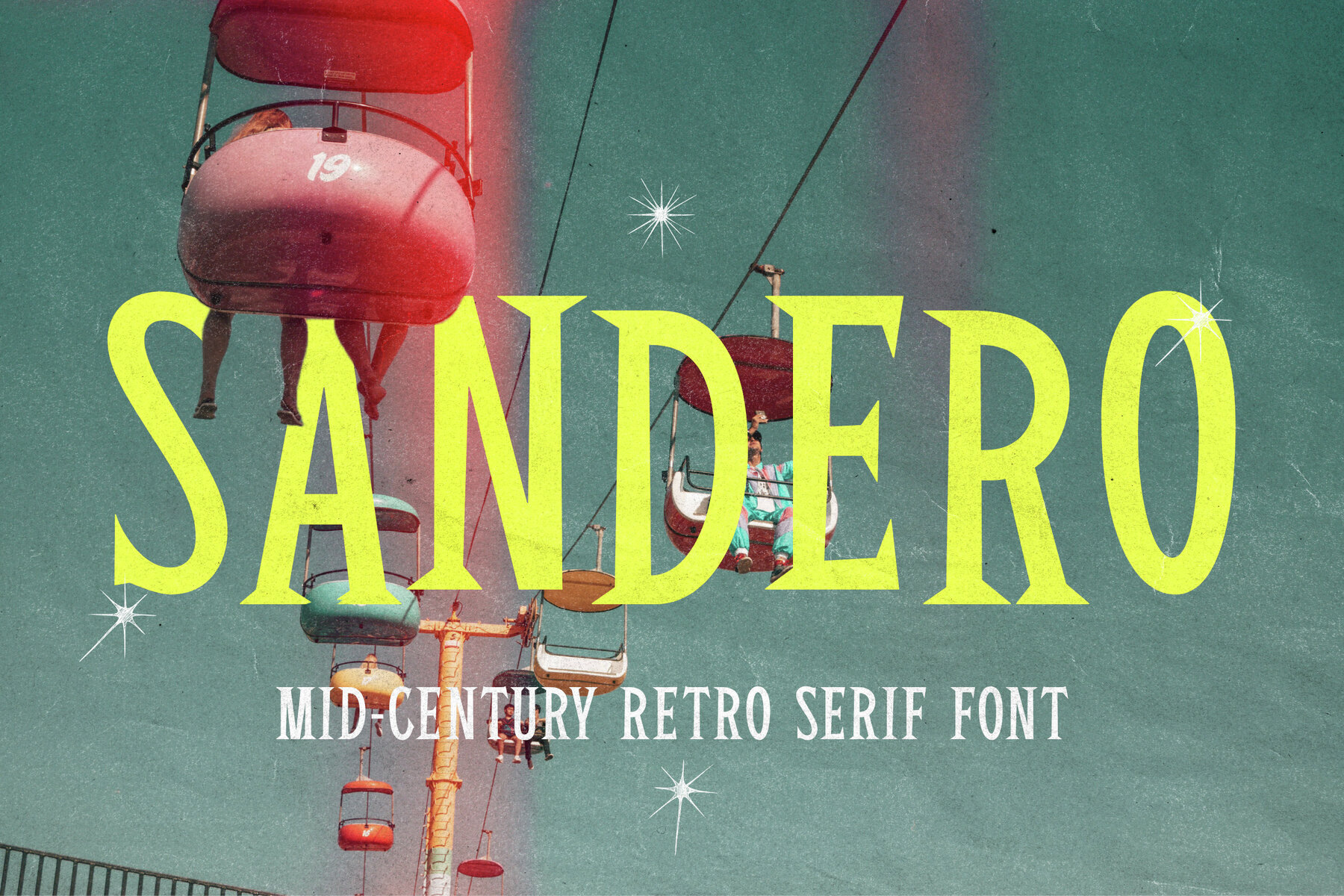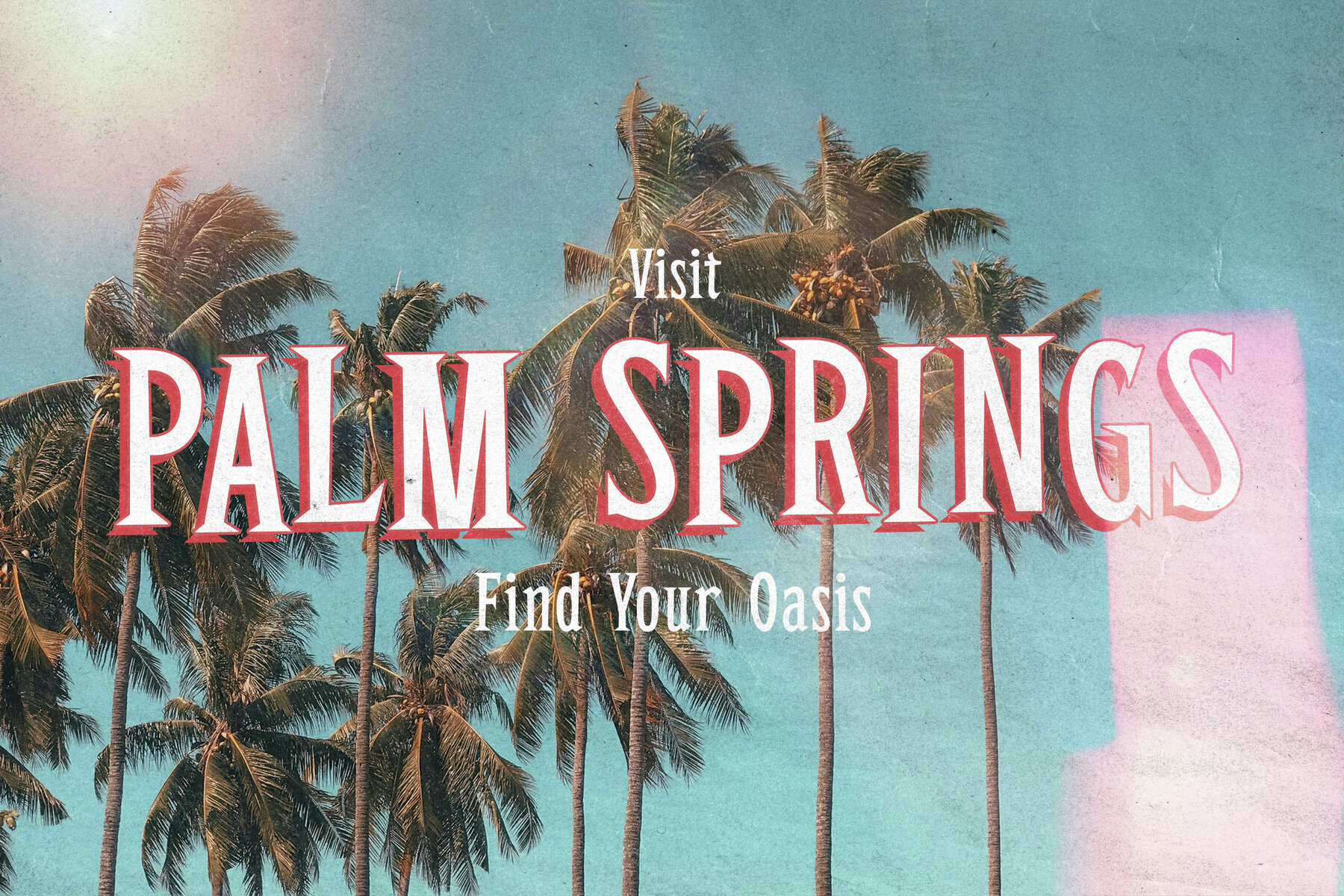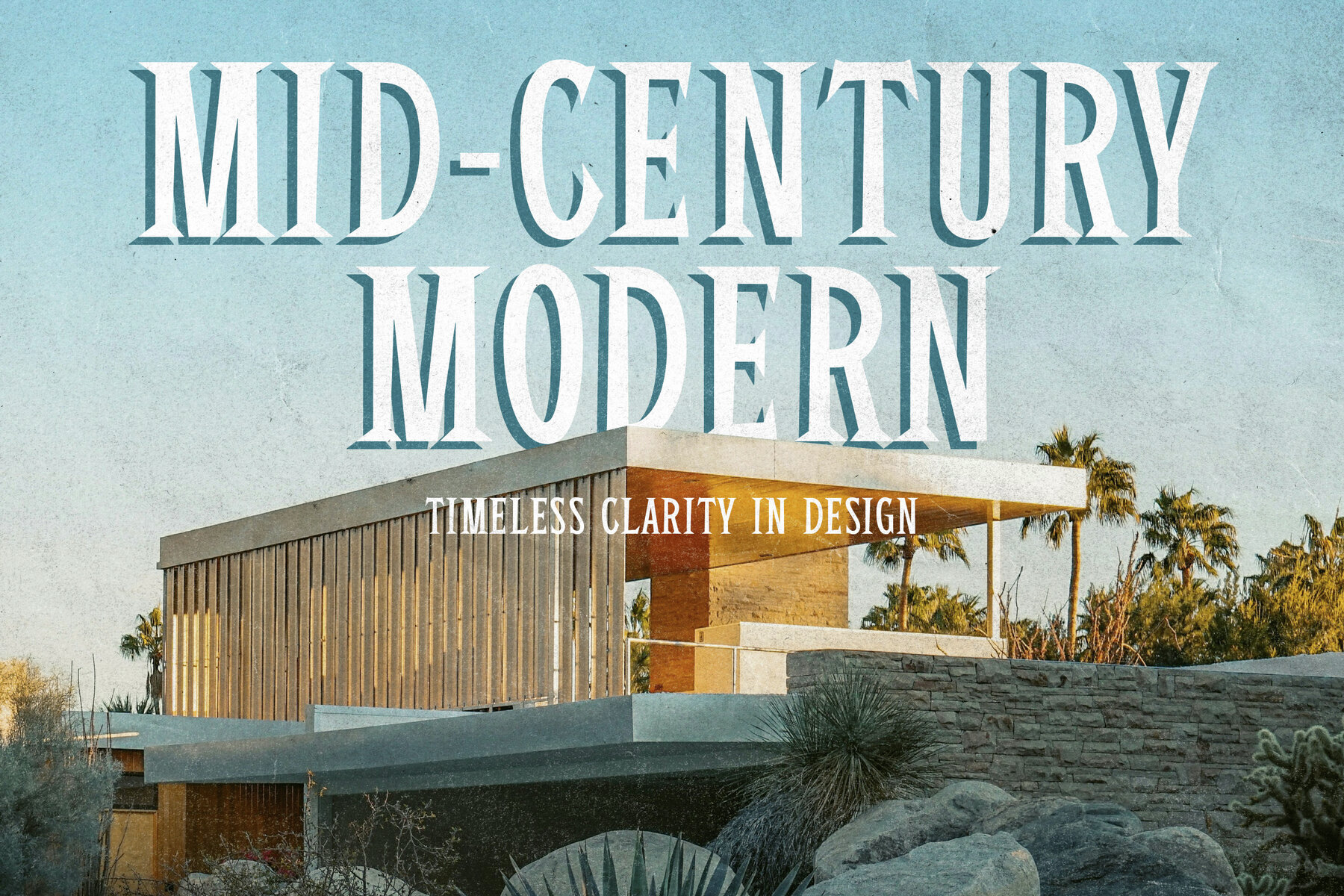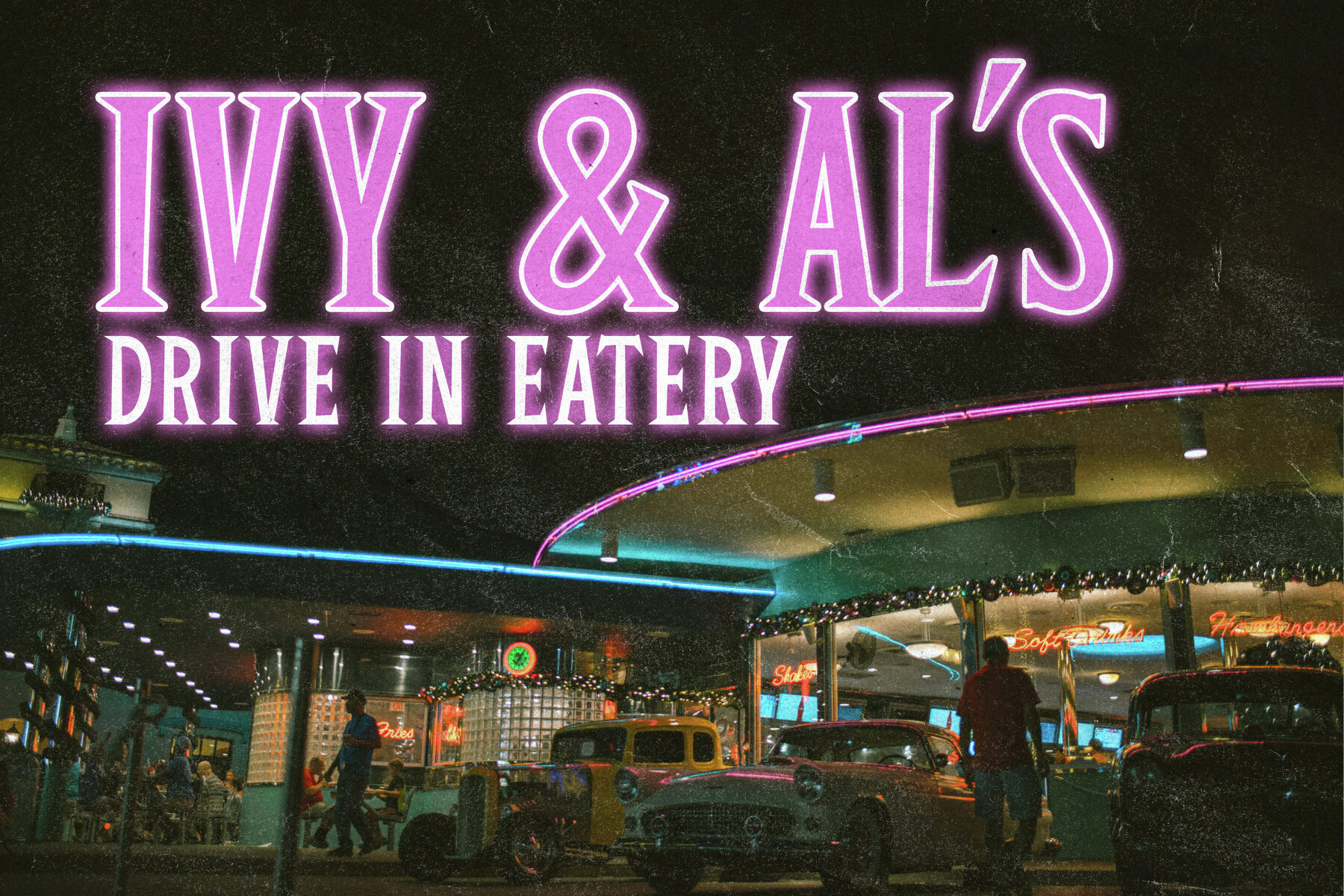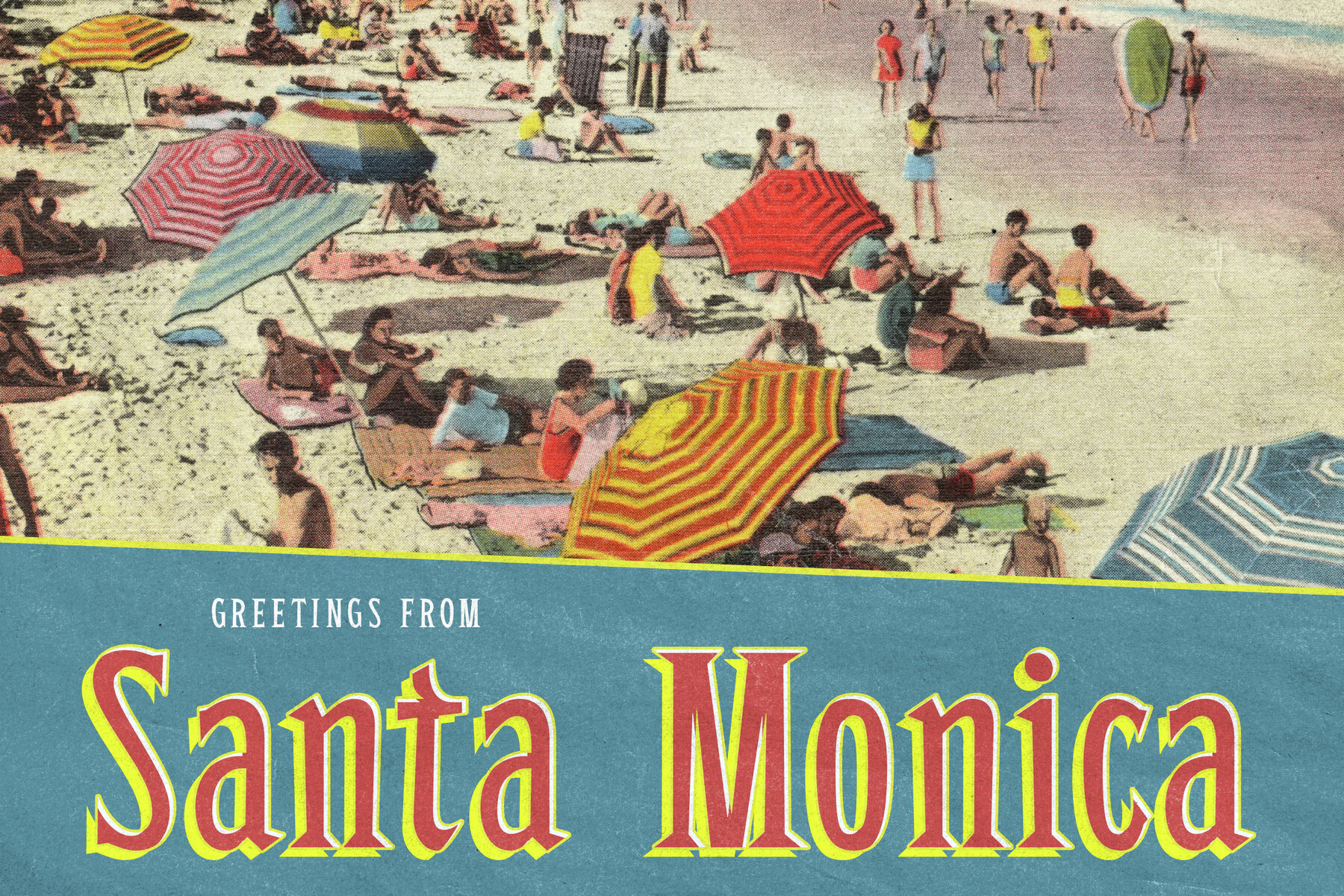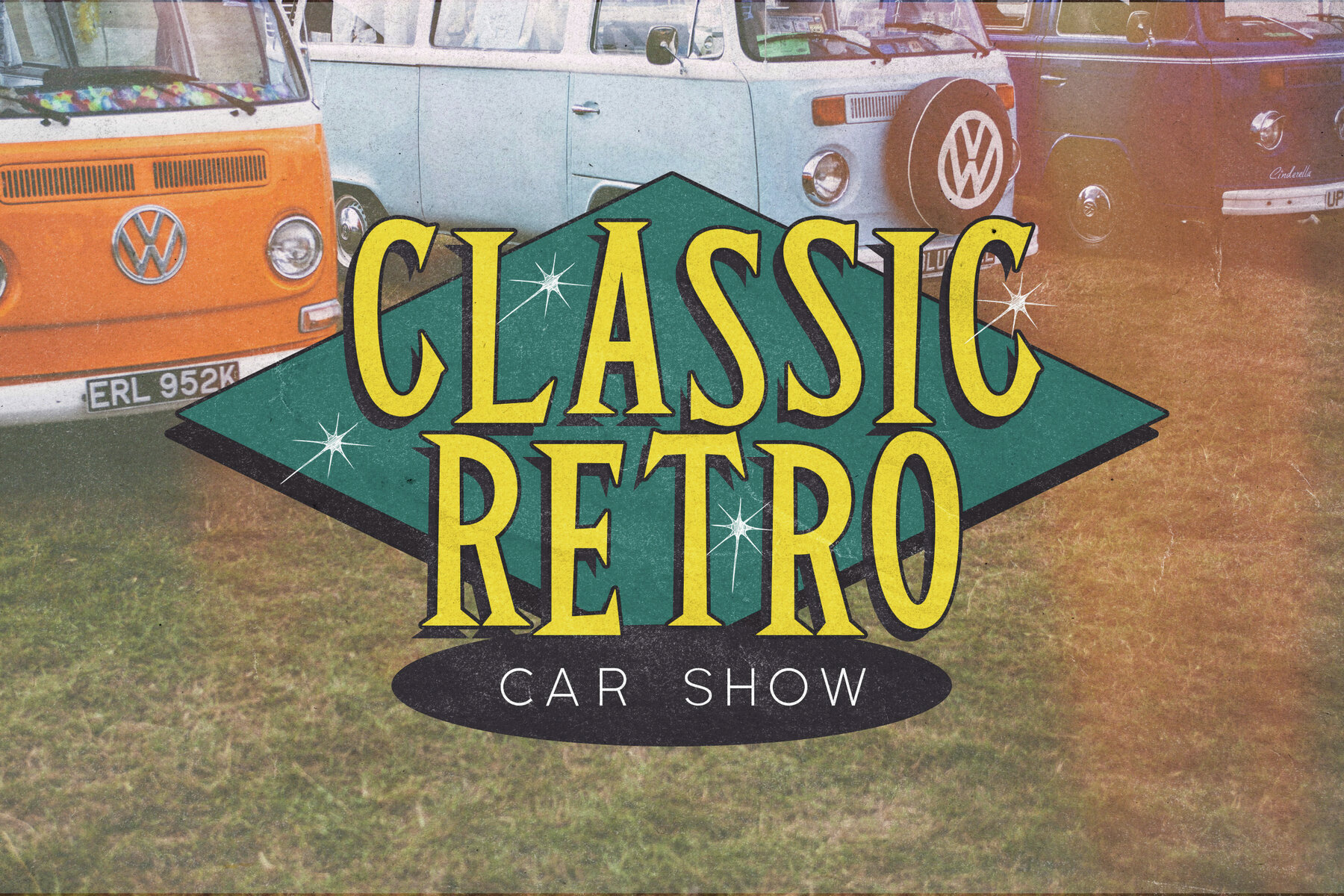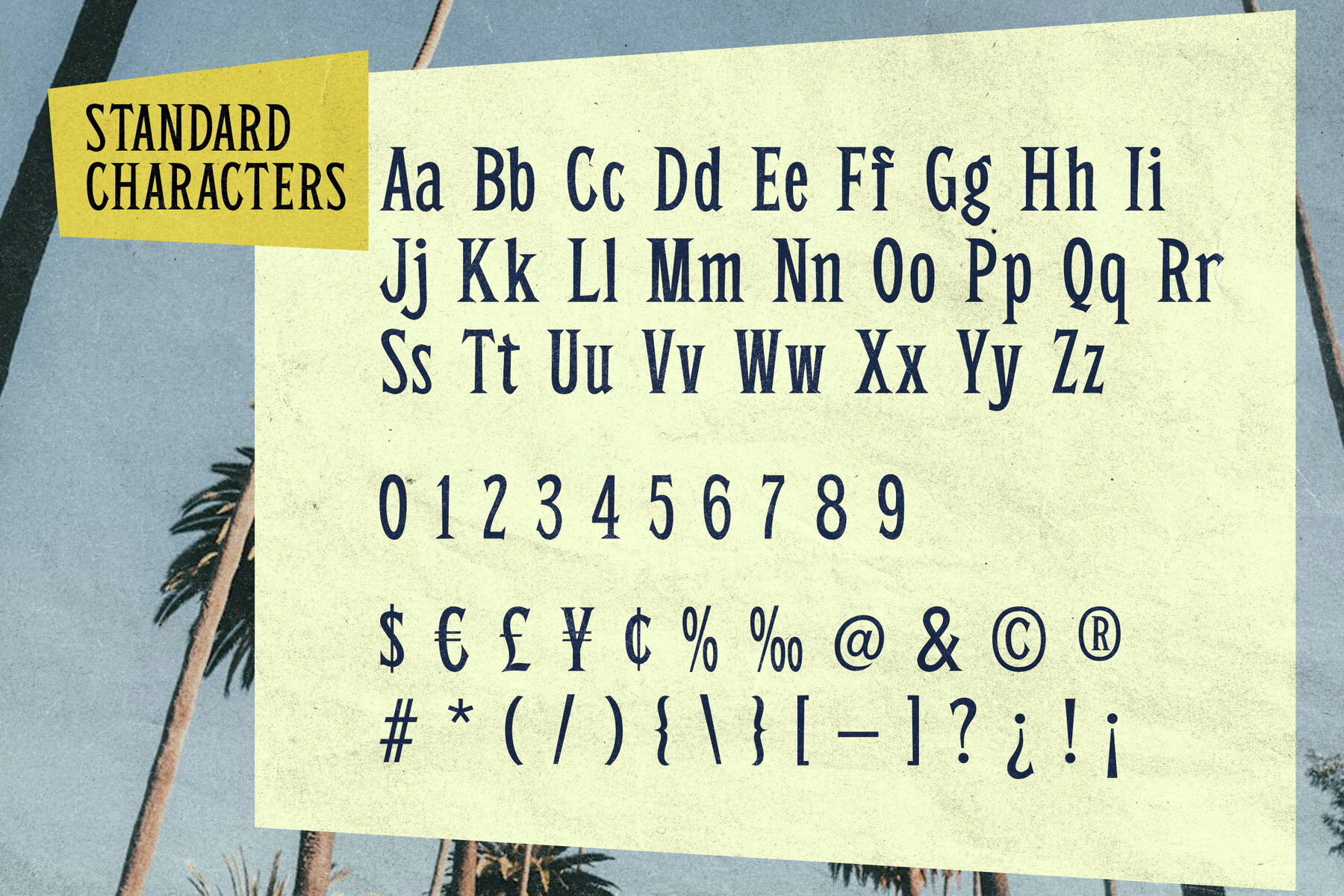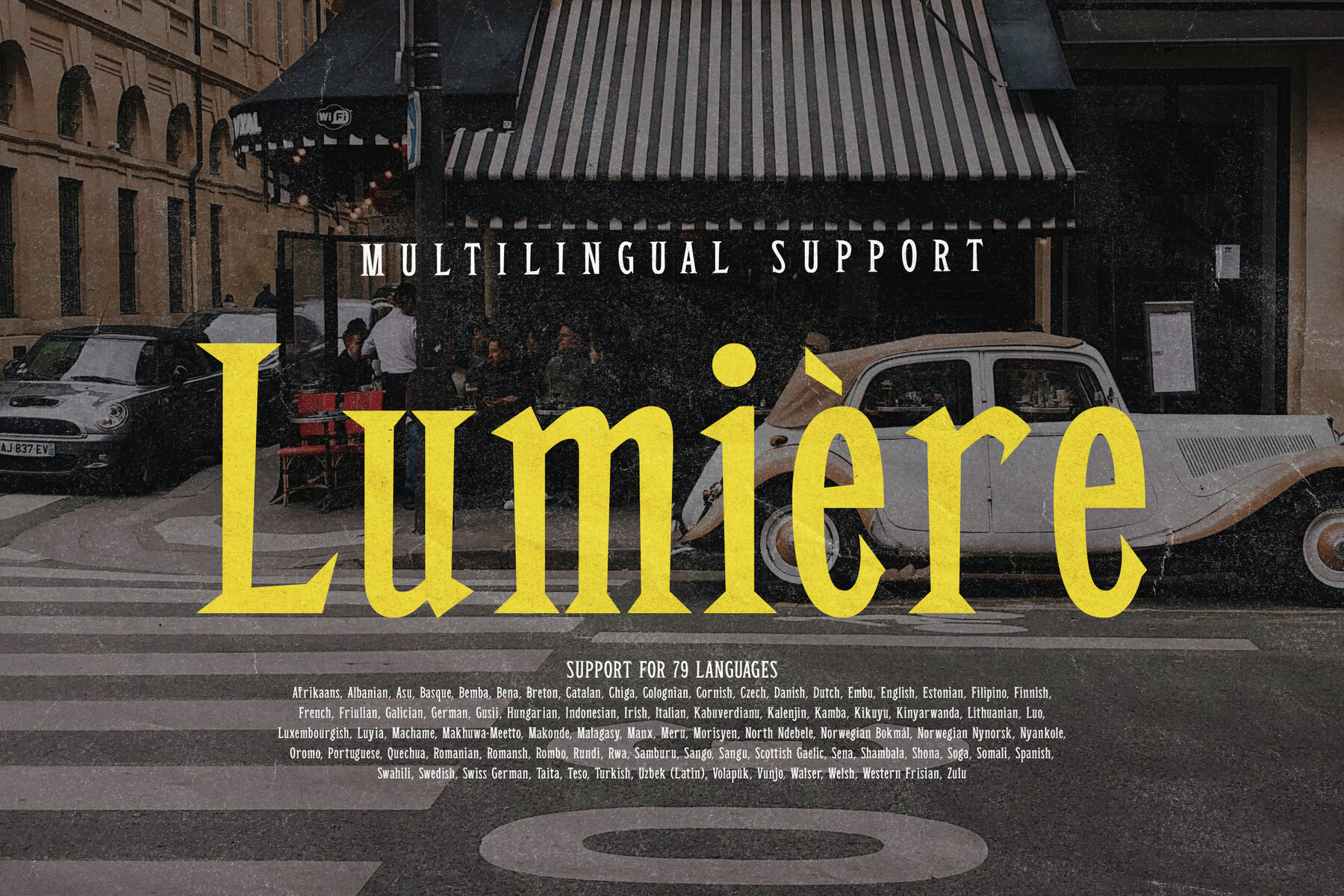
Sandero Font
Sandero is a bouncy mid-century themed serif font. It features a full set of alternate characters that deviates slightly from the baseline for a fun retro feel. This font is perfect for creating casual designs meant to embody the enthusiasm and creative thinking of the 50's & 60's.